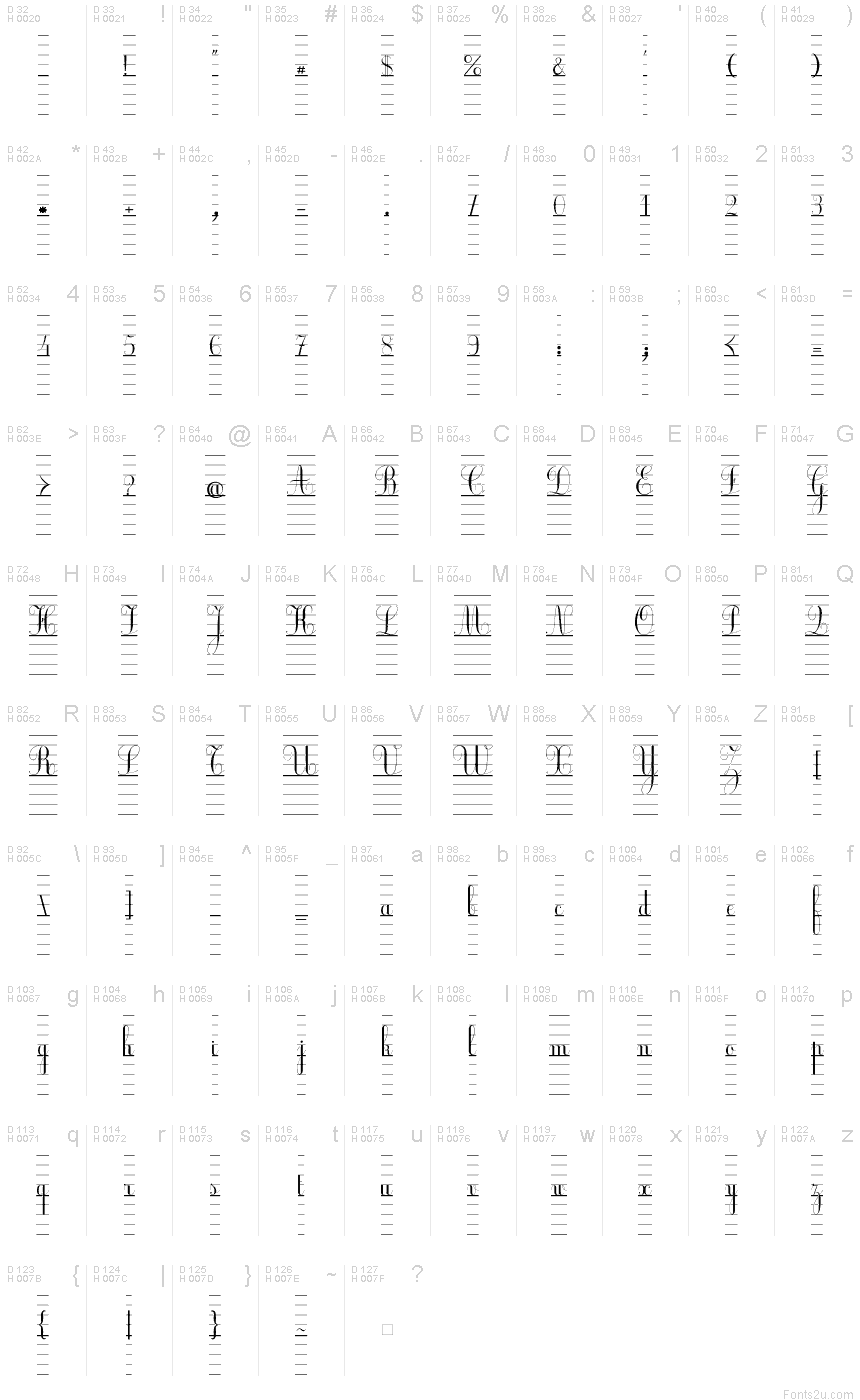
Ecolier_lignes_court
Ecolier Lignes Court font by JM Douteau brings the feel of a French school notebook straight into your layout: a neat, looping cursive set snugly between classroom ruling lines. Those built-in guides keep the handwriting crisp and legible, so it reads like real pen on paper instead of a loose script. It’s a free school handwriting font, with a friendly rhythm that stays organized even in short headings.
Using Ecolier Lignes Court, you can add instant “exercise book” charm to worksheets, handwriting practice sheets, classroom posters, kids’ story pages, teacher newsletters, educational apps, school event invites, and scrapbook captions. Set it a touch larger so the ruled lines breathe, and pair this free font with a clean sans typeface for instructions or body text to keep everything easy to scan.